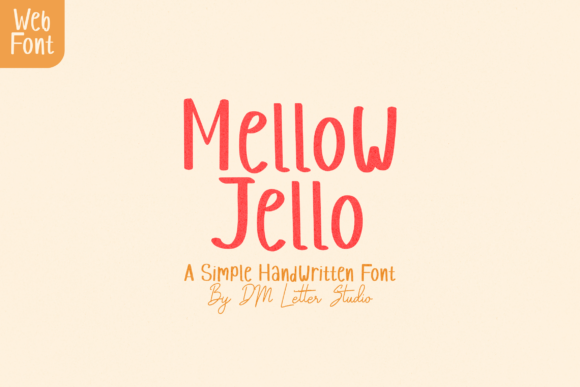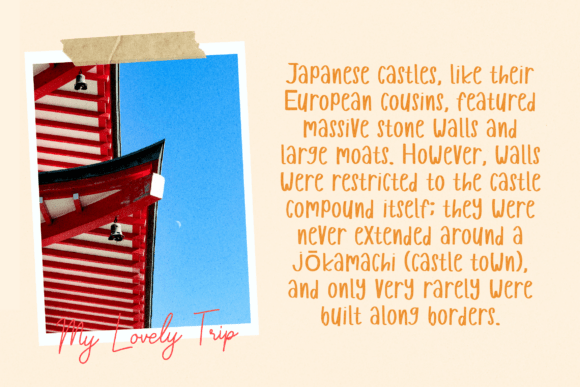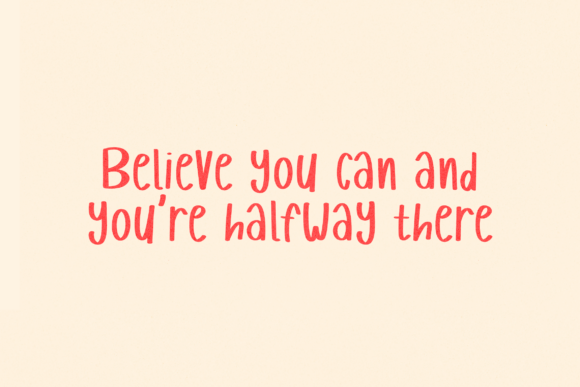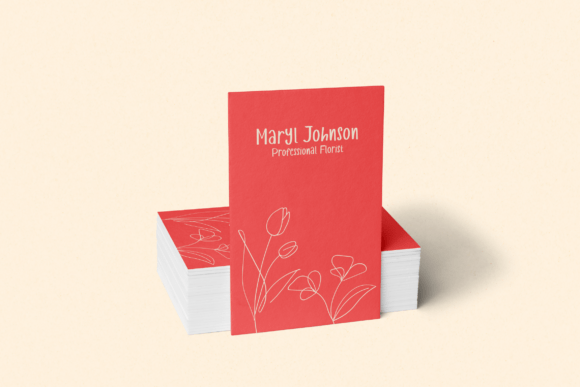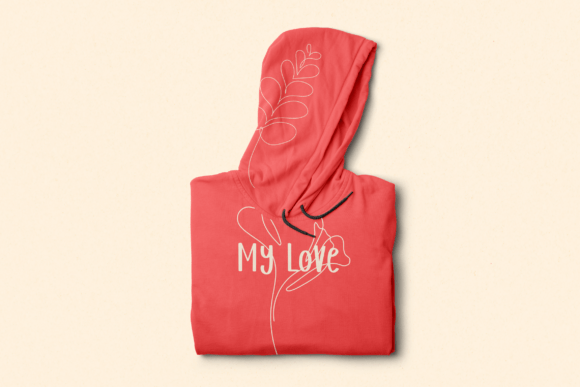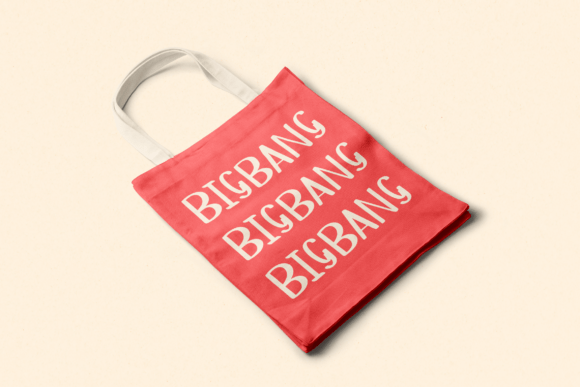
Introduction to Mellow Jello Font
Have you ever stared at a blank canvas, waiting for that perfect spark of creativity to ignite your next design project? For designers like you, the right font can be the missing piece that takes your work from meh to mesmerizing. And that’s where Mellow Jello Font comes in – a game-changing design resource that’s about to revolutionize the way you approach your creative projects.
With its unique, jelly-like curves and rounded edges, the Mellow Jello Font is the perfect addition to any high-quality design. Whether you’re working on a digital or print project, this versatile typeface is sure to bring a burst of joy and enthusiasm to your work. And the best part? It’s available for a free download, making it an invaluable resource for designers of all levels.
Key Features of Mellow Jello Font
- Unique, hand-drawn design perfect for creative projects requiring a playful and whimsical touch
- Perfect for designers seeking a fun and eye-catching element to enhance their designs
Honest Review: Mellow Jello Font
I recently had the chance to try out the Mellow Jello Font, and I must say it’s been a great addition to my design resource collection. The font itself is quite unique, with a fun and quirky vibe that’s perfect for creative projects.
One of the things that really stood out to me was the high quality of the font. The designers have clearly put a lot of time and effort into creating a product that’s both functional and visually appealing. The transparent background feature is also a nice touch, making it easy to use in a variety of different design contexts.
Here are some of the things that work well with the Mellow Jello Font:
- ✨ Unique and quirky design aesthetic
- ✨ High quality and smooth rendering
- ✨ Easy to use with transparent background feature
Of course, no font is perfect, and the Mellow Jello Font has a few limitations:
- ⚠️ Limited character set (may not be suitable for large blocks of text)
- ⚠️ May not be as versatile as some other fonts (e.g. sans-serif, serif)
Overall, I’m really impressed with the Mellow Jello Font. It’s a great addition to any designer’s toolkit, and I’ve already found myself using it in a few different creative projects. If you’re looking for a unique and high-quality font for your next design project, I’d definitely recommend checking it out – and with a free download option, there’s no reason not to give it a try!
The Mellow Jello Font is a unique and eye-catching design resource that can add a creative touch to your projects. With its high quality and transparent background, this font is perfect for any creative project.
Tips for Getting the Most Out of Mellow Jello Font
To get the most out of the Mellow Jello Font, experiment with different font sizes, colors, and styles to create unique and eye-catching designs. You can also combine the font with other design elements to create a cohesive and creative project.
The Mellow Jello Font is perfect for any creative project, including social media graphics, posters, flyers, and more. Its high quality and transparent background make it a great choice for designers who want to add a creative touch to their projects.